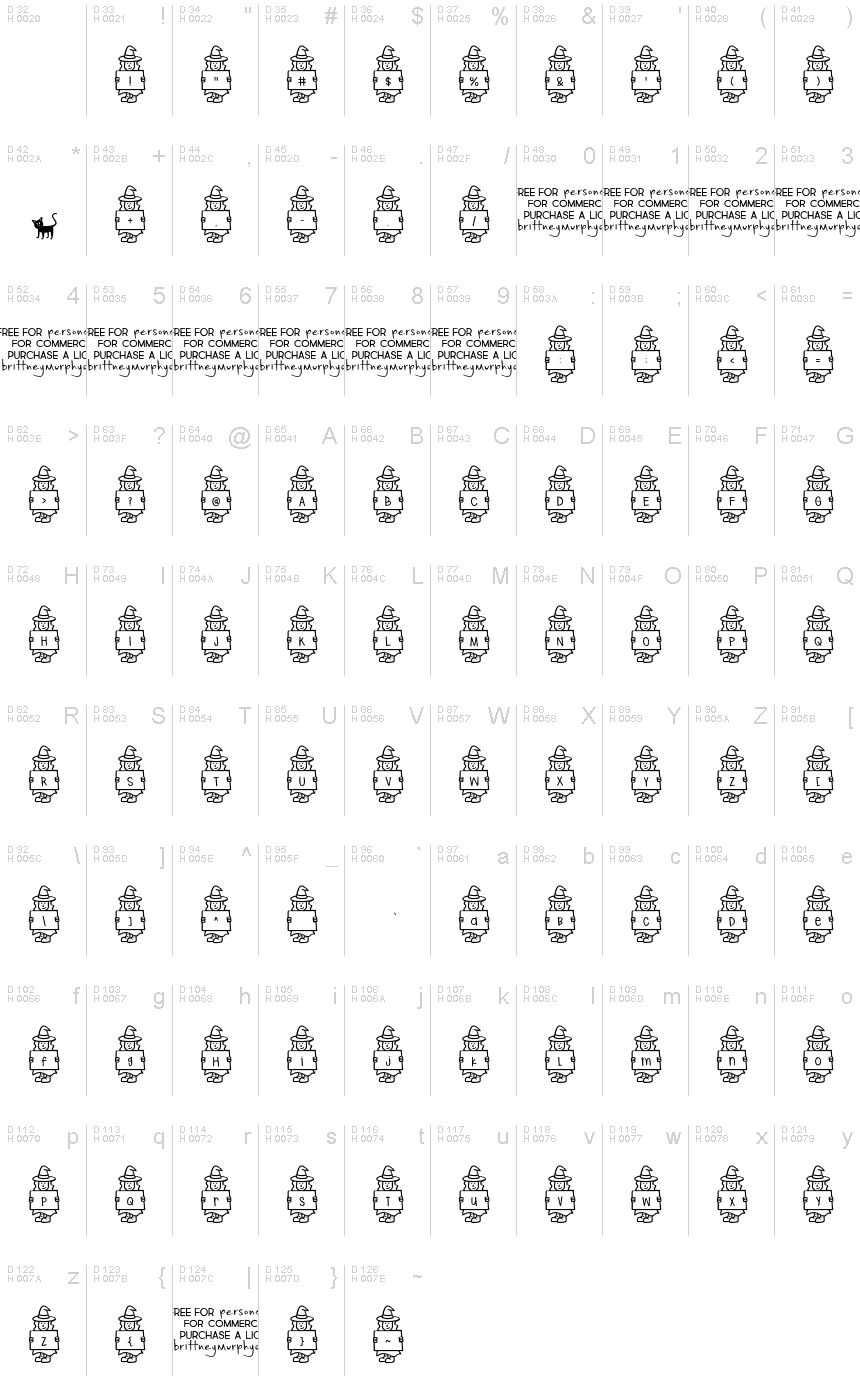
Spooky*Witch*Letters
The Spooky Witch Letters font is a playful Halloween font designed by Brittney Murphy. Use the underscore (_) for a witch holding a blank sign. Use the asterisk(*) for a black cat character.